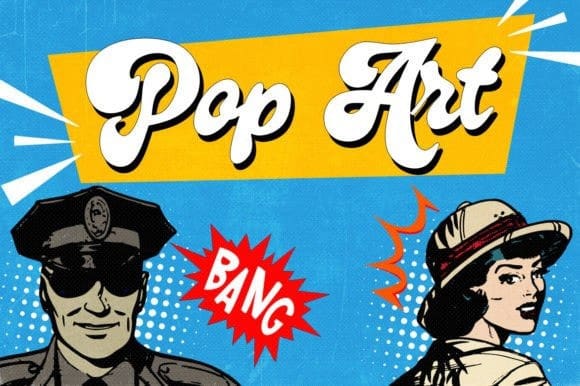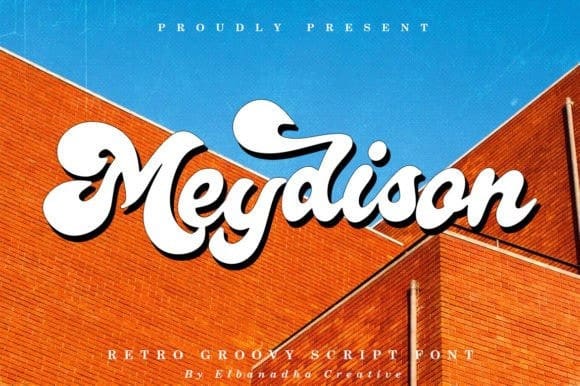
Meydison Retro Font
Meydison Retro Font, is a retro and groovy display font, suitable for any project such as logos, branding, homeware designs, product packaging, mugs, quotes, posters, shopping bags, T-shirts, book covers, name cards, invitation cards, greeting cards, labels, photography, watermark, special events, and all your other lovely projects that need a beautiful taste.